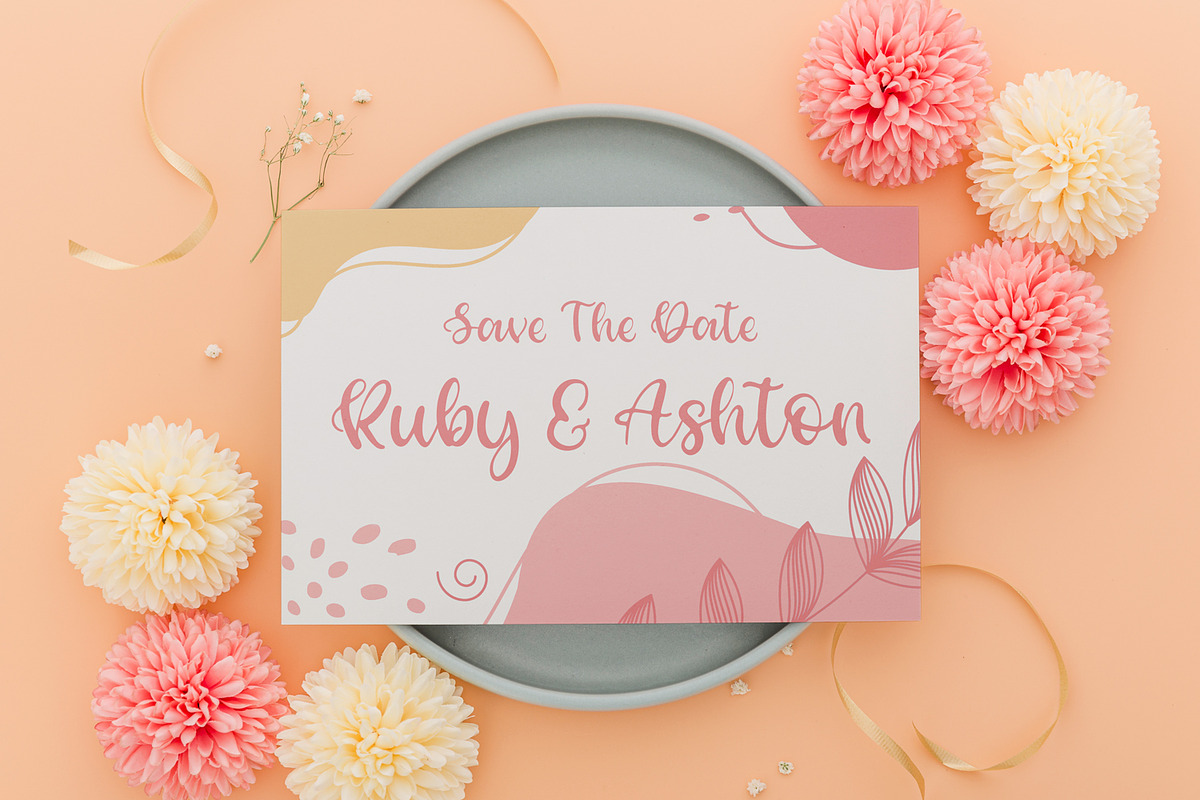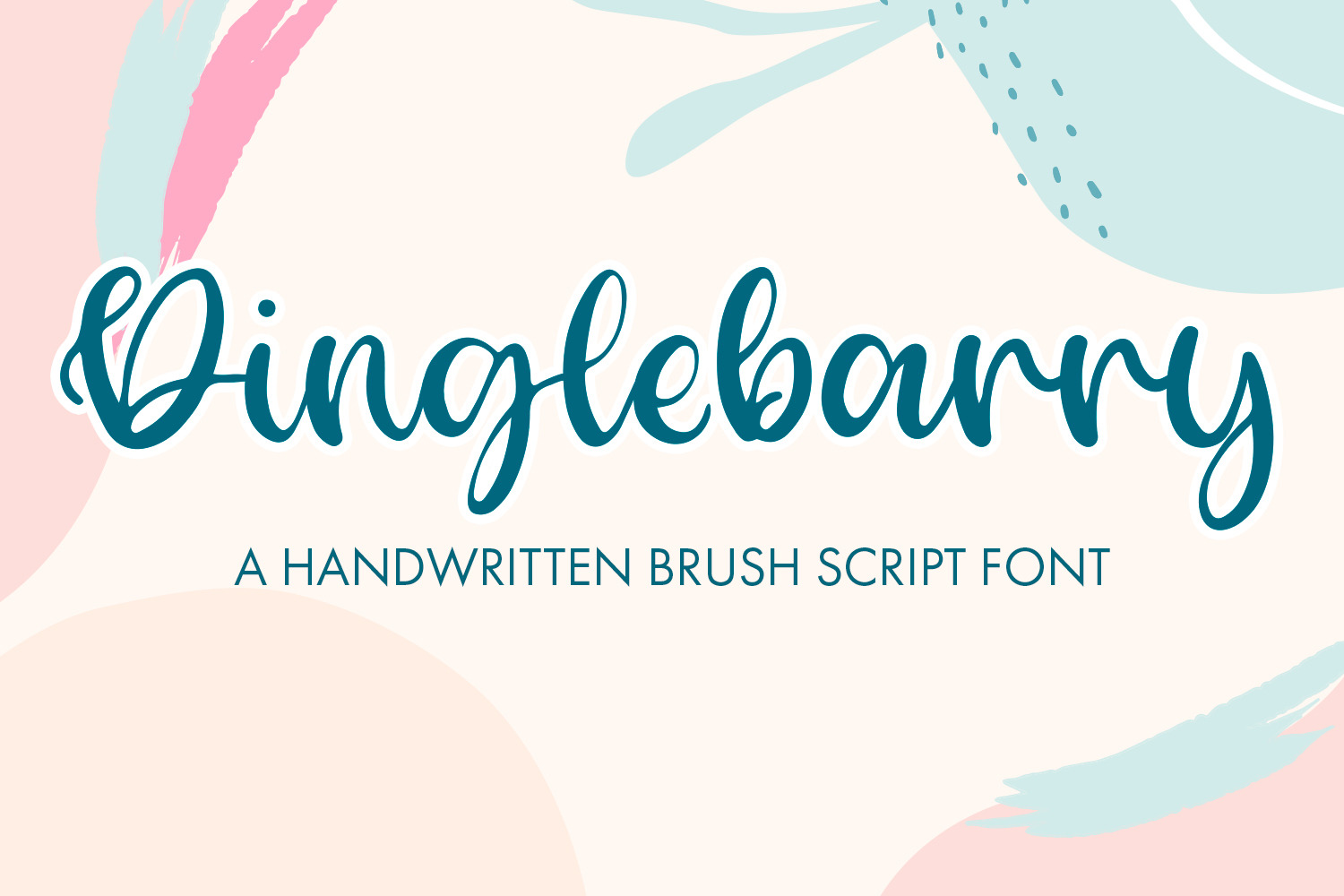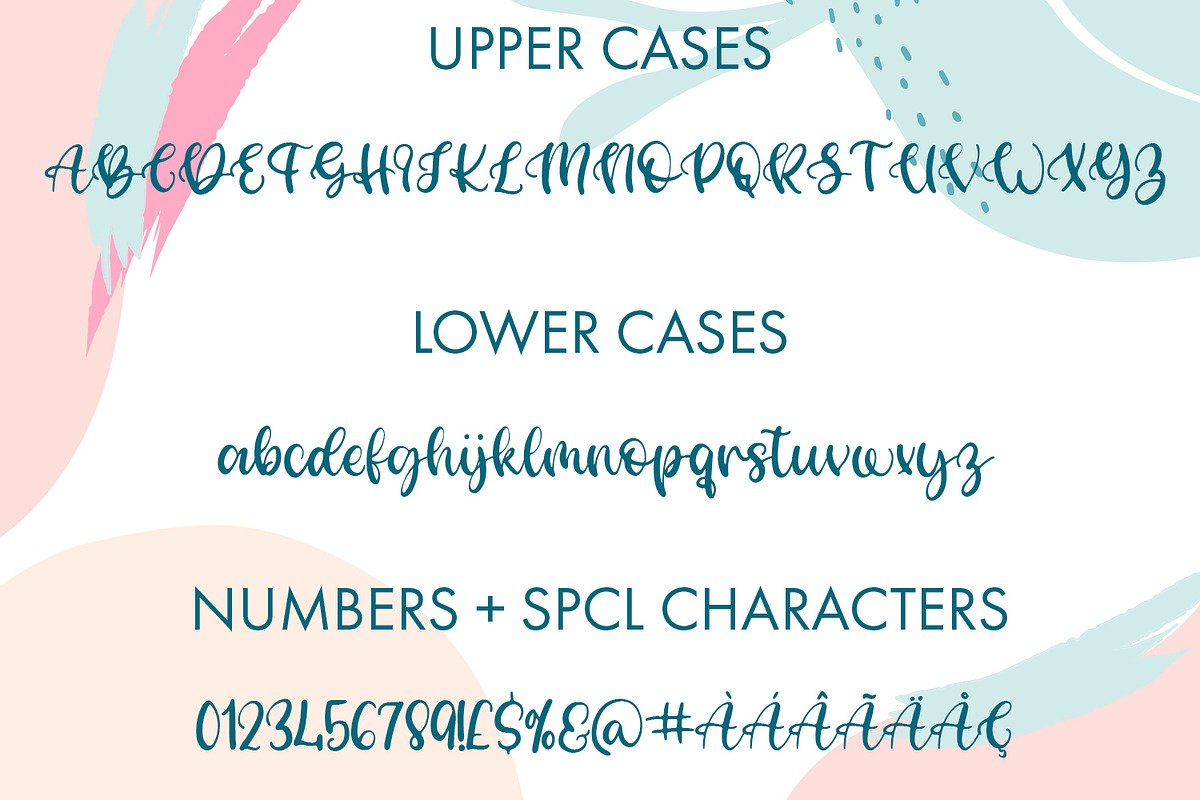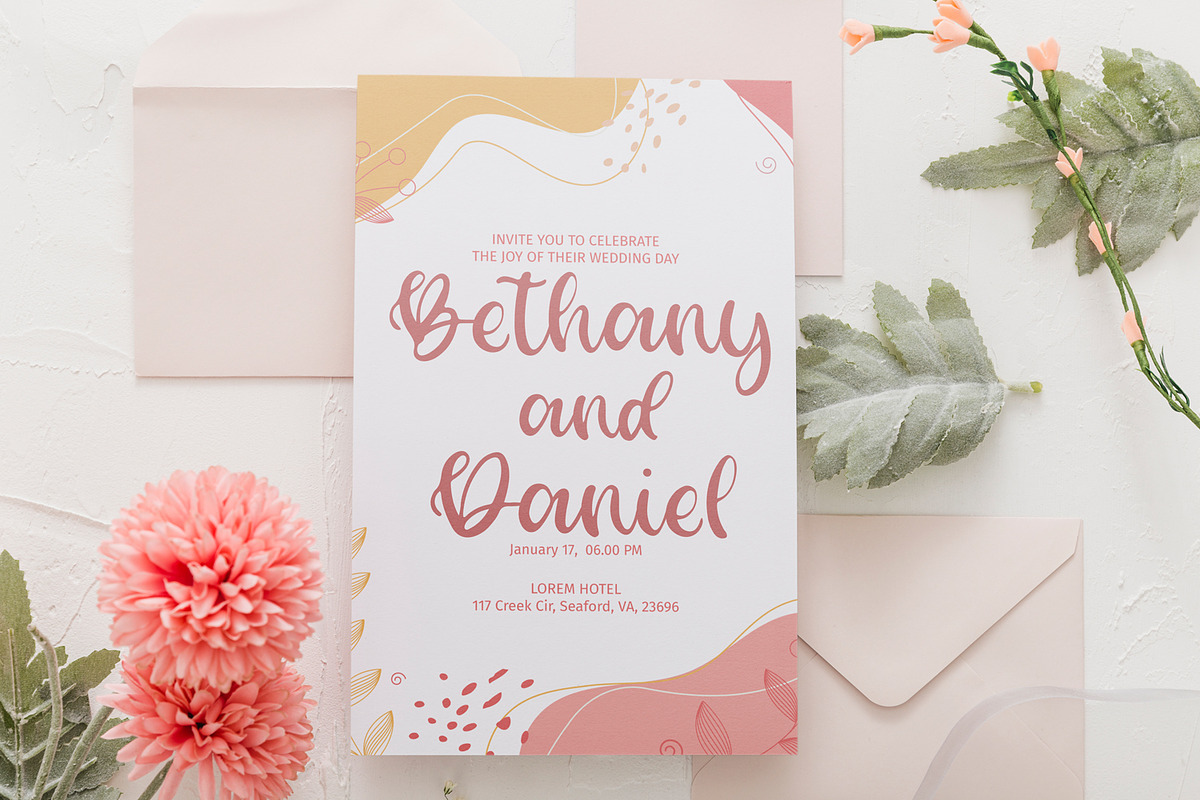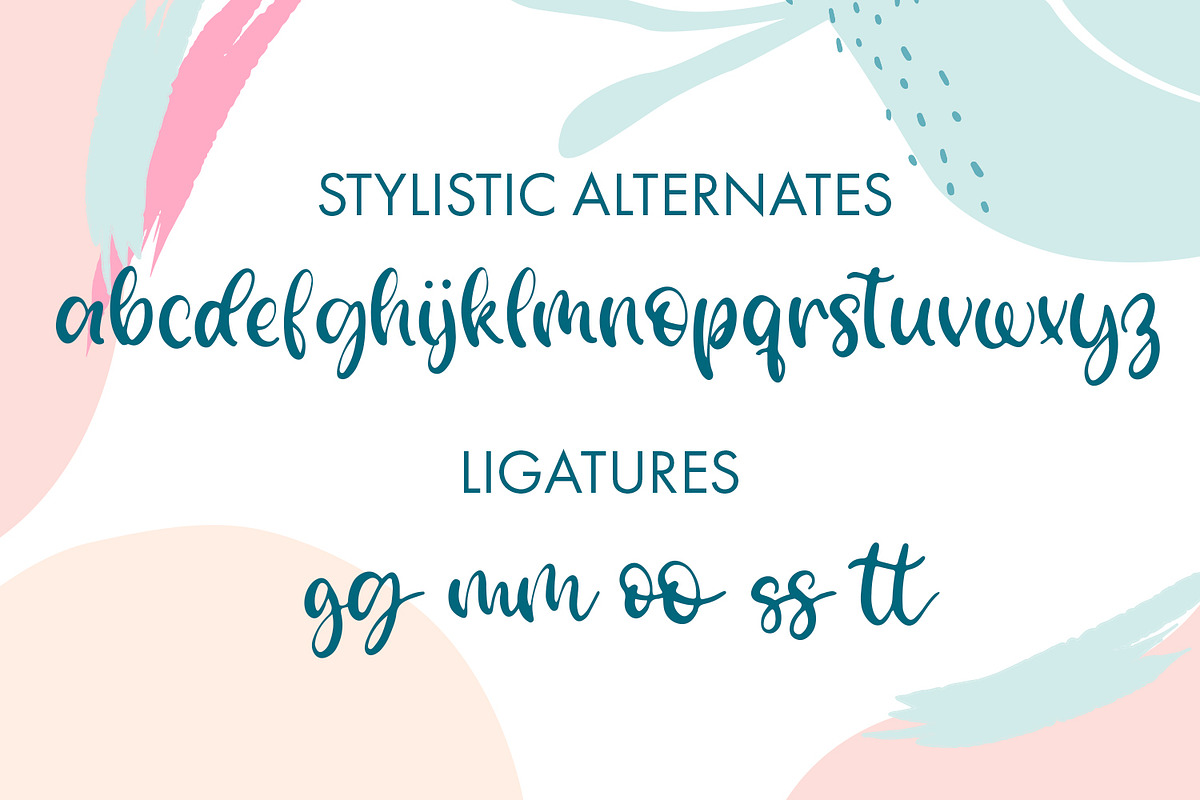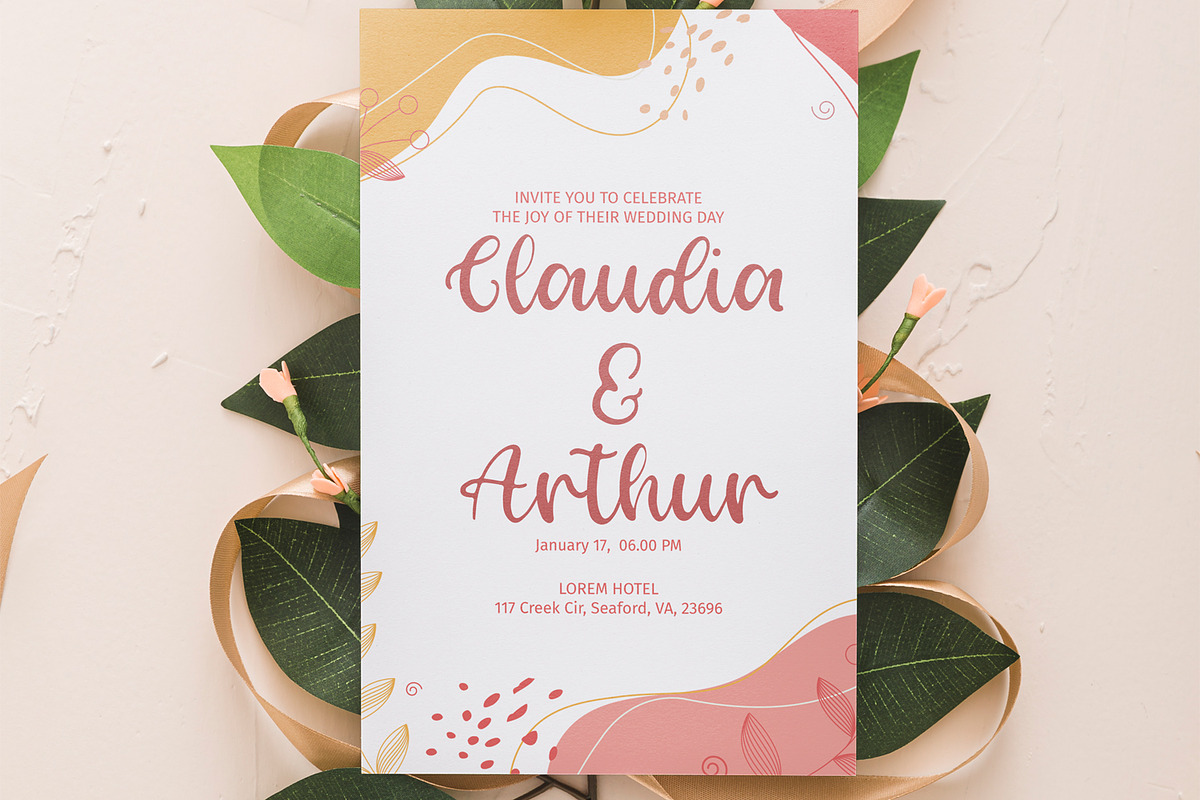
Dinglebarry Handwritten Script Font
Dinglebarry A Handwritten Script Font
Introducing 'Dinglebarry – A Playful Handwritten Script Font! Add a dash of whimsy to your creative projects with this charming and versatile font. Whether you're designing invitations, cards, or branding materials, 'Dinglebarry' brings a delightful touch to your work. Get it now and let your creativity flourish!